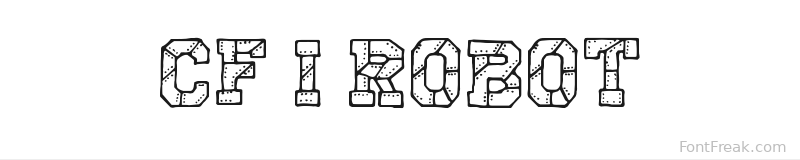
CF I Robot
The CF I Robot font by Cloutierfontes is a distinctive display typeface that captures the essence of a futuristic, industrial aesthetic. Designed in 2017, this font features a unique combination of bold, blocky letters that exude a playful yet robust personality. The stroke weight is consistent throughout, giving the typeface a sturdy appearance, while the slightly distressed texture adds a sense of character and uniqueness, making it stand out in various design contexts. The spacing between the letters is well-balanced, ensuring legibility while maintaining a cohesive look.
CF I Robot is particularly versatile, making it suitable for a range of creative applications. It works exceptionally well for sci-fi themed movie posters, where its modern and edgy vibe can capture the viewer's imagination. Additionally, its bold presence makes it ideal for branding projects, especially for tech startups looking to convey innovation and forward-thinking. This font can also enhance signage for themed restaurants or cafes, providing a quirky touch that aligns with a contemporary or playful ambiance. Graphic designers will find it useful for eye-catching social media graphics and promotional materials, while content creators can leverage its unique style to add flair to their projects.
What sets CF I Robot apart is its ability to merge functionality with creativity, making it an ideal choice for those looking to make a bold statement. Its unique design elements ensure that any project utilizing this font will not only stand out but also resonate with a sense of innovation and character.